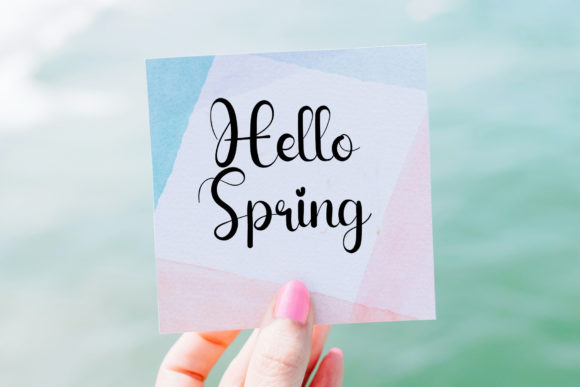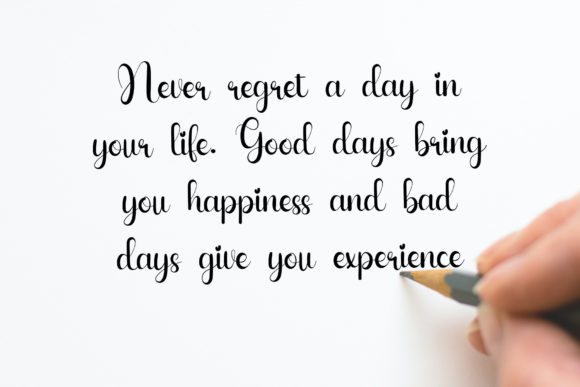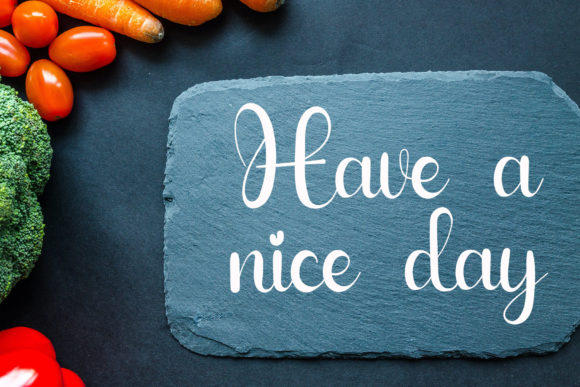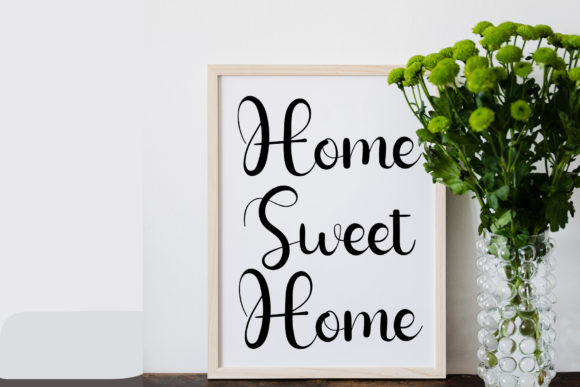
Handmade Signature Font
About Handmade Signature Font
“Handmade Signature” is described as a stylish and dainty script font, crafted for a variety of projects, including logos, branding, labels, photography, watermarks, special events, and more. The font is positioned as a versatile choice, promising to add a beautiful script taste to a range of creative endeavors.
The use of “stylish” suggests a font with a contemporary and visually appealing design, while “dainty” implies a delicate and refined quality. These characteristics make it suitable for projects that demand an elegant and tasteful script, aligning well with the mentioned applications.
Its suitability for logos and branding projects implies that “Handmade Signature” has a distinctive and memorable quality, contributing to the visual identity of a brand. The mention of labels, photography, and watermarks suggests that it can seamlessly integrate into various visual elements, enhancing the overall aesthetics.
The reference to special events indicates that the font is versatile enough to be applied to occasions that require a touch of sophistication and personalization. This adaptability is a valuable feature for designers working on diverse projects.
For those seeking a script font that combines style and delicacy, “Handmade Signature” appears to be a promising choice. Its versatility makes it suitable for a wide range of creative projects, providing designers with the tools to infuse a beautiful script taste into their logos, branding, photography, and other visual materials.